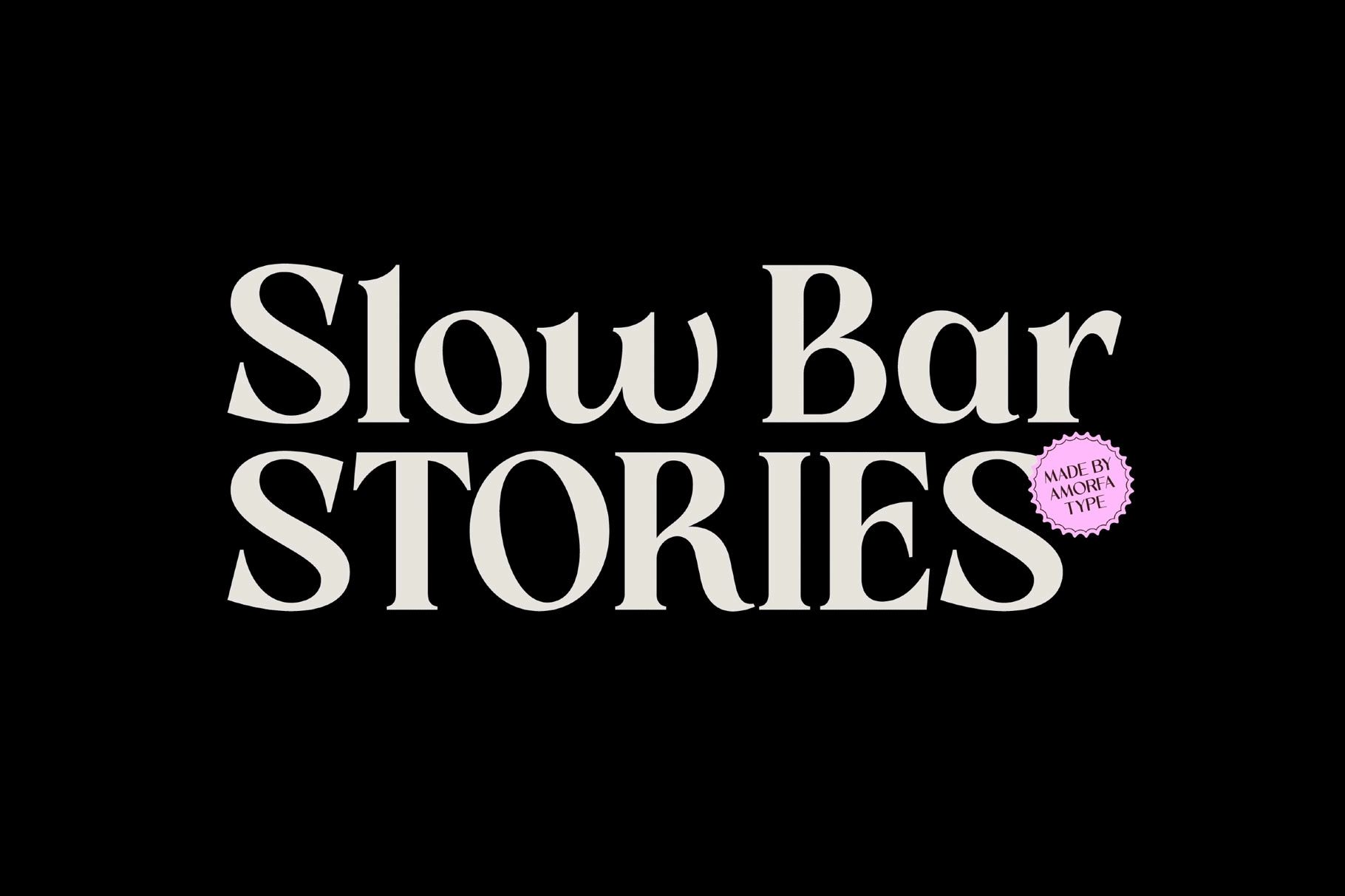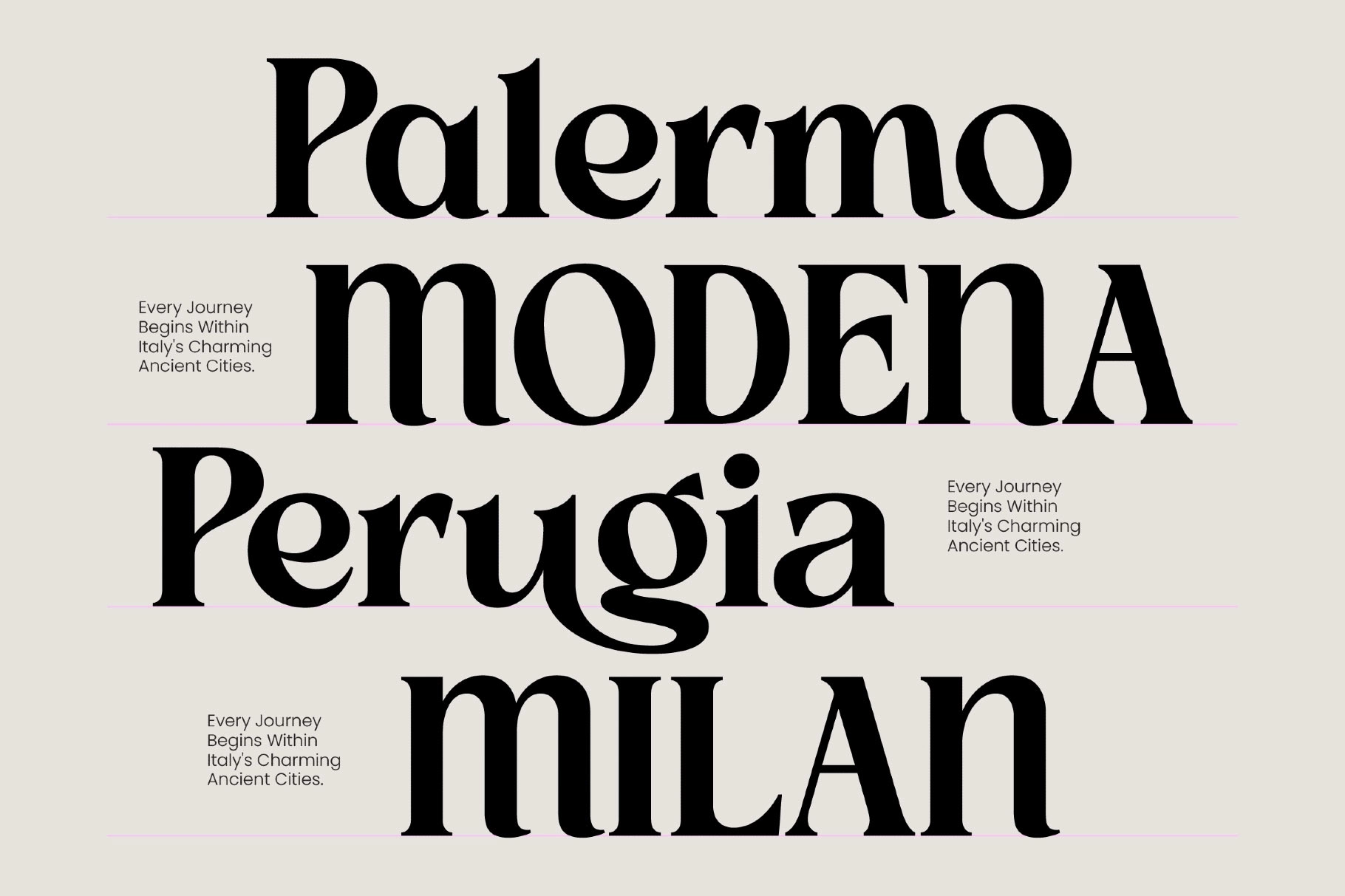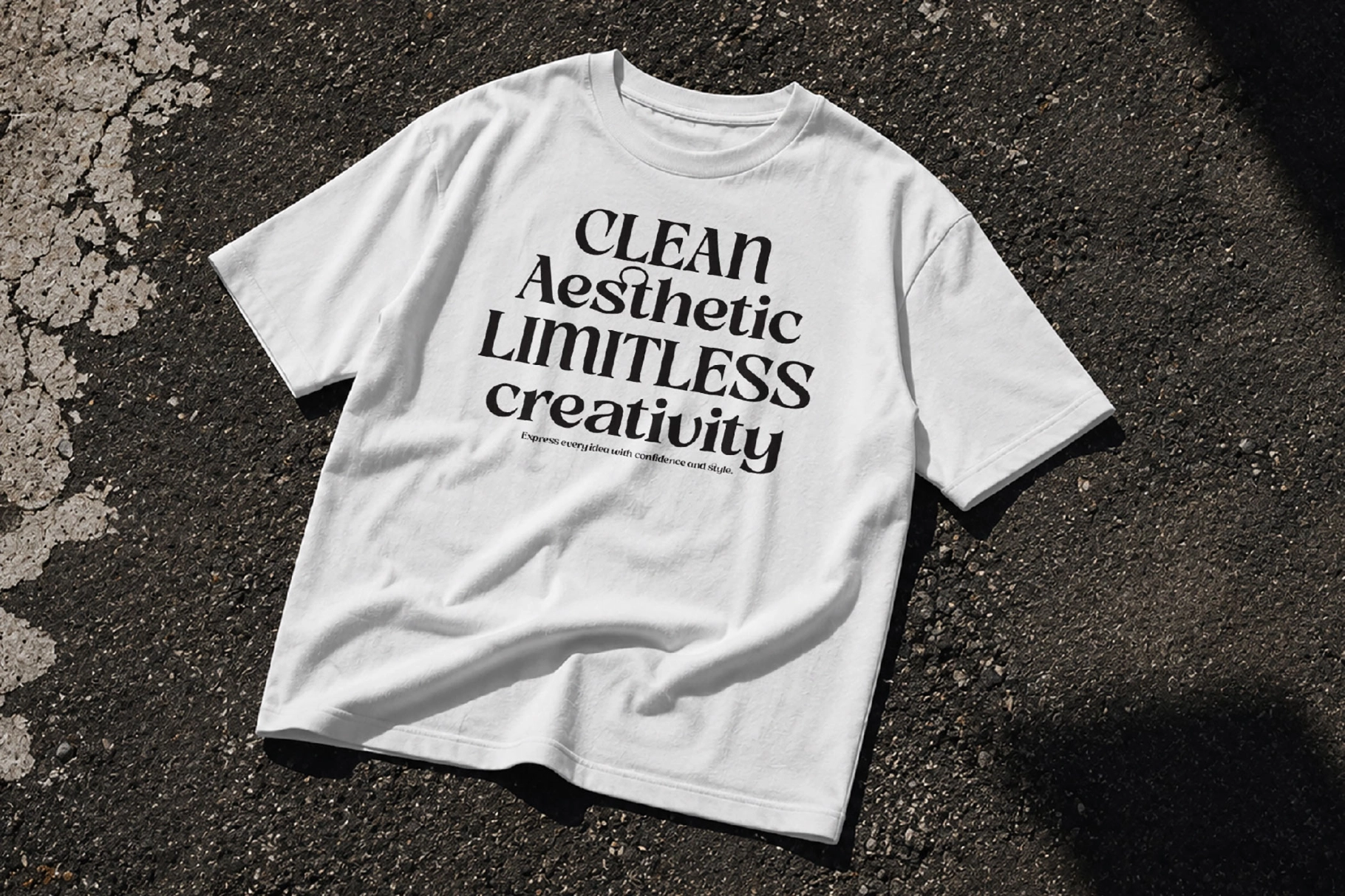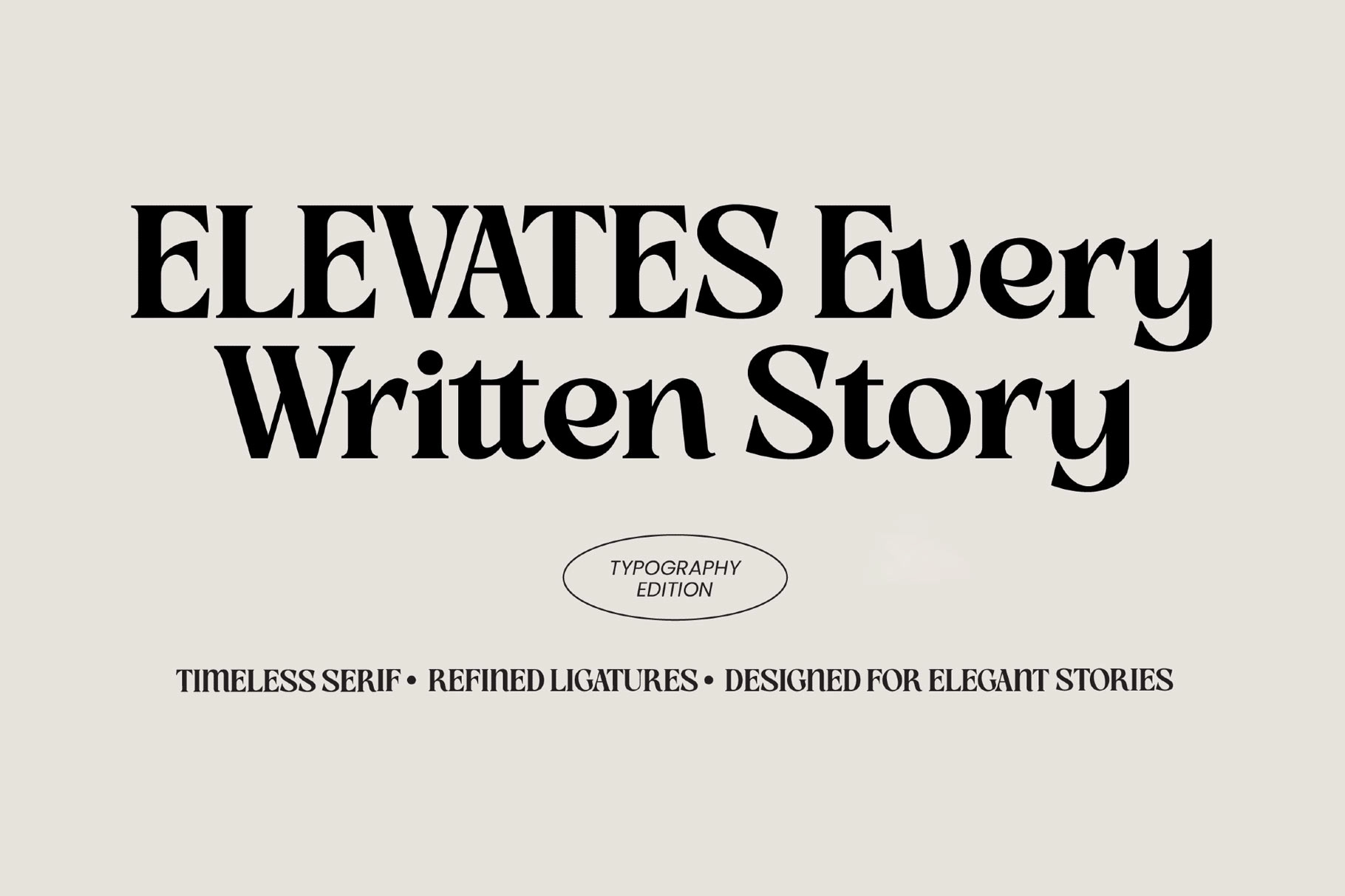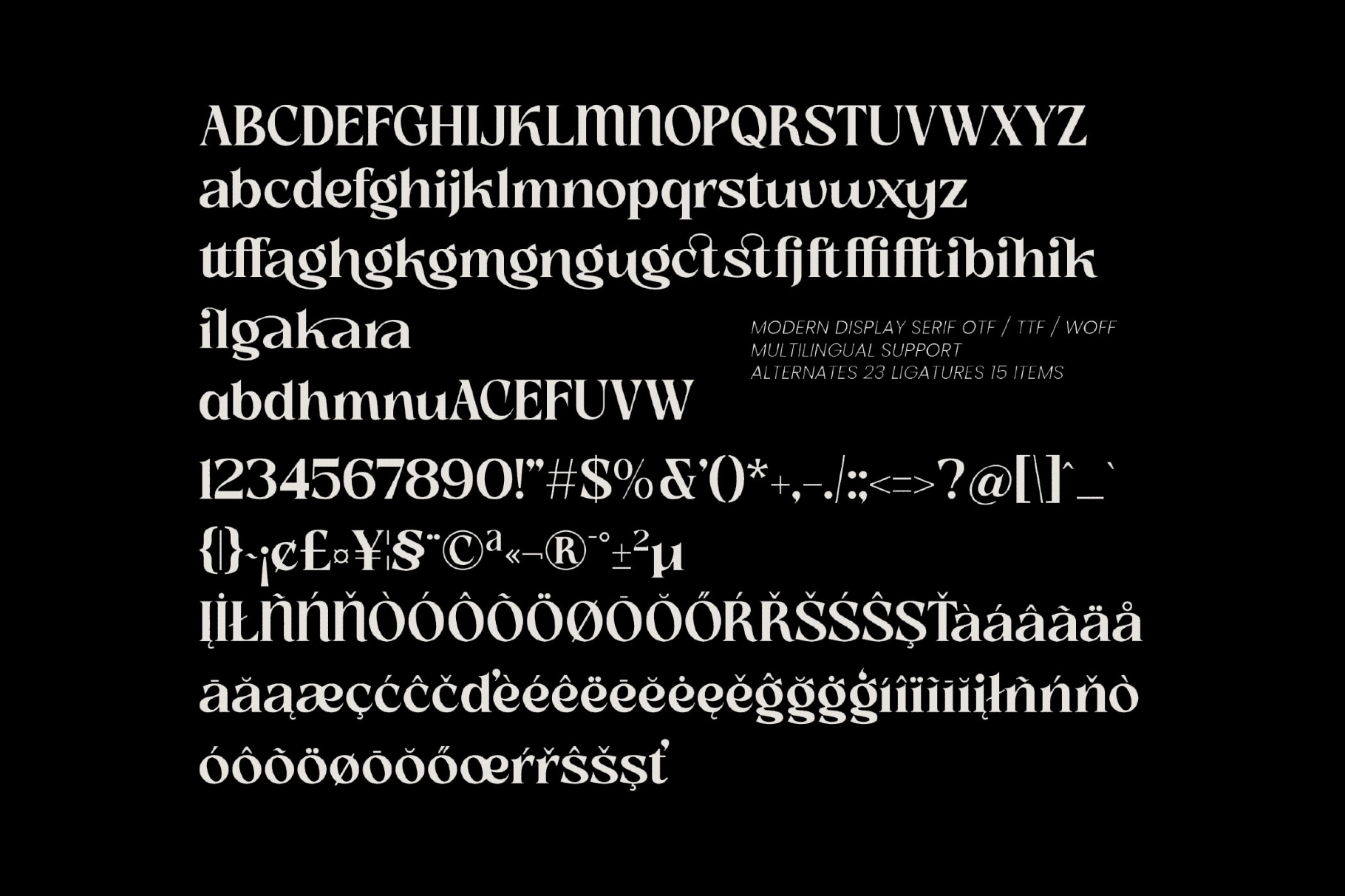
Slow Bar Stories - Retro Display Serif Font
Slow Bar Stories is a retro display serif font with big rounded terminals, generous curves, and a soft bounce that reads closer to hand-painted café signage than a straight text face. The italic keeps the same curved bowls but tilts into a looser, more casual rhythm.
The ligature set links common pairs like ct and st into single strokes, so headlines keep an unbroken, sign-painted rhythm even at large sizes. Use it for café and restaurant branding, packaging labels, editorial headlines, magazine covers, and lifestyle social posts.
- Regular & Italic styles;
- Uppercase & lowercase;
- Numerals, punctuation & symbols;
- 23 ligatures (standard & discretionary) and 15 stylistic alternates;
- Fractions & superscript figures;
- 368 glyphs total